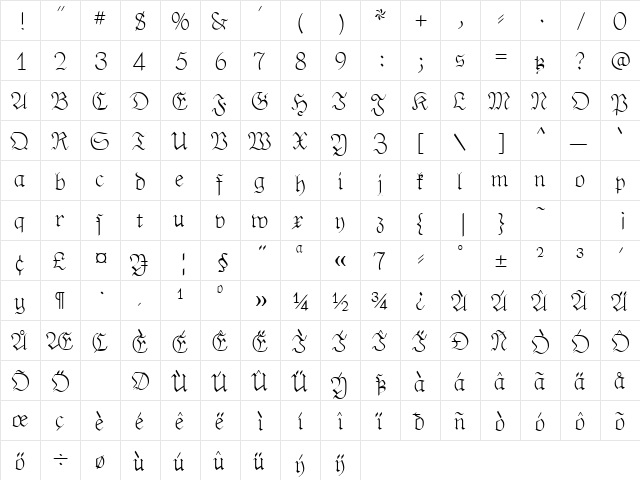
PhederFrackDtshThin Regular
Design Context for PhederFrackDtshThin Typeface
PhederFrackDtshThin takes a measured approach to typography — its balanced proportions and neutral character make it a reliable workhorse for both digital and print work. Its slender proportions lend an understated elegance to any composition.